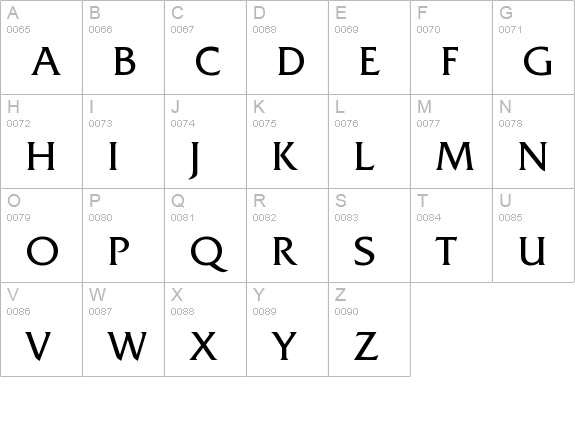
Fremont-Regular is the standard, neutral variant in the Fremont typeface family \xE2\x80\x94 well suited to general body text, paragraphs, and standard typographic work.
Fremont-Regular is a versatile and modern font that exudes simplicity and elegance. Its clean lines and timeless design make it suitable for a wide range of projects, from branding to editorial design. The font features a perfect balance between classic and contemporary aesthetics, making it a go-to choice for designers looking for a reliable and stylish typeface. What makes Fremont-Regular even more appealing is that it is available for free download at FontsMarket.com. This means that designers can access this high-quality font without any cost, making it a valuable addition to their font library. Whether you are working on a print project, digital design, or web development, Fremont-Regular offers a sophisticated and polished look that will elevate your work to the next level. Download Fremont-Regular today and unleash your creativity with this exceptional font.